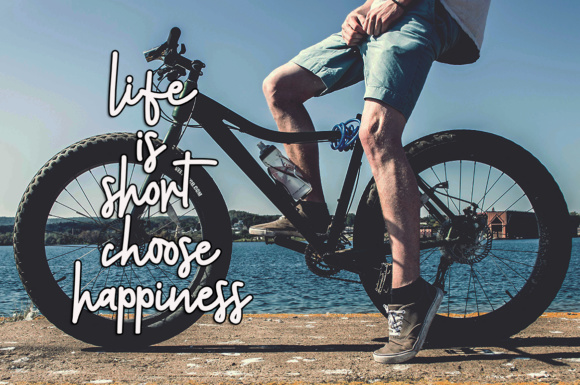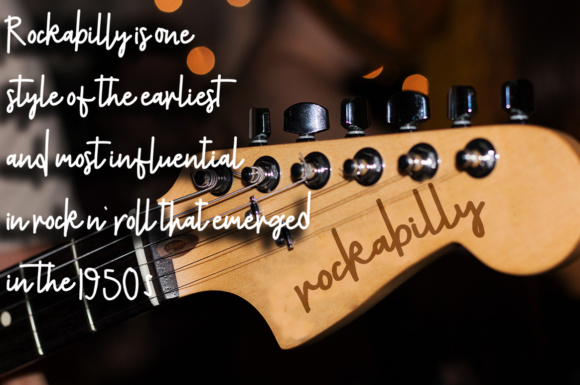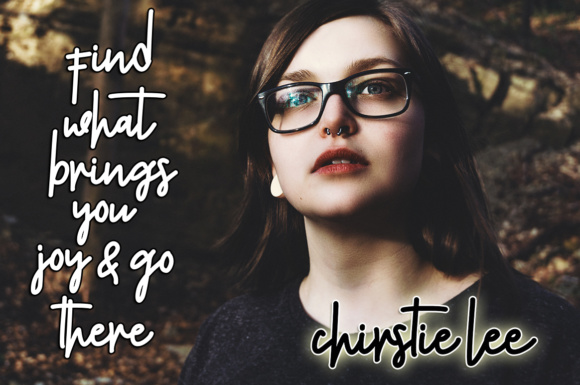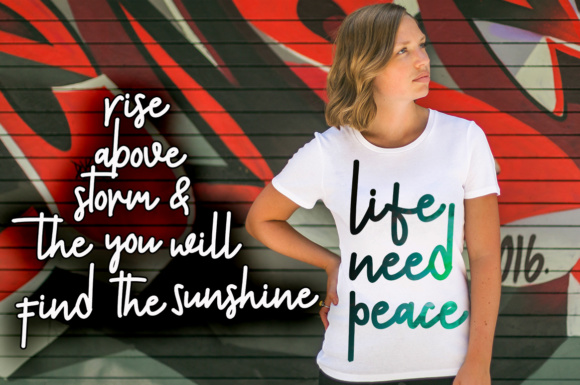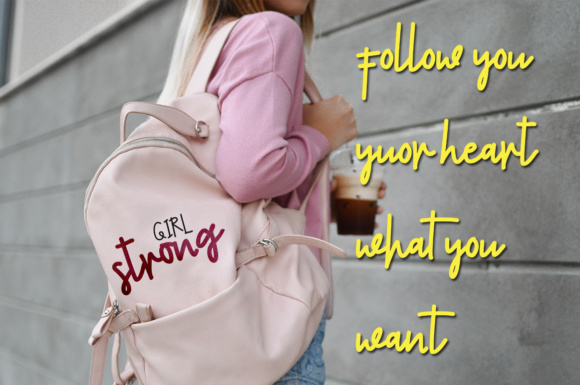
Freedom Font
About Freedom Font
Freedom is a beautiful, monoline script font that looks perfectly at home in a wide range of projects! This font is a trendy, monoline font that will give your projects a clean and refined look.